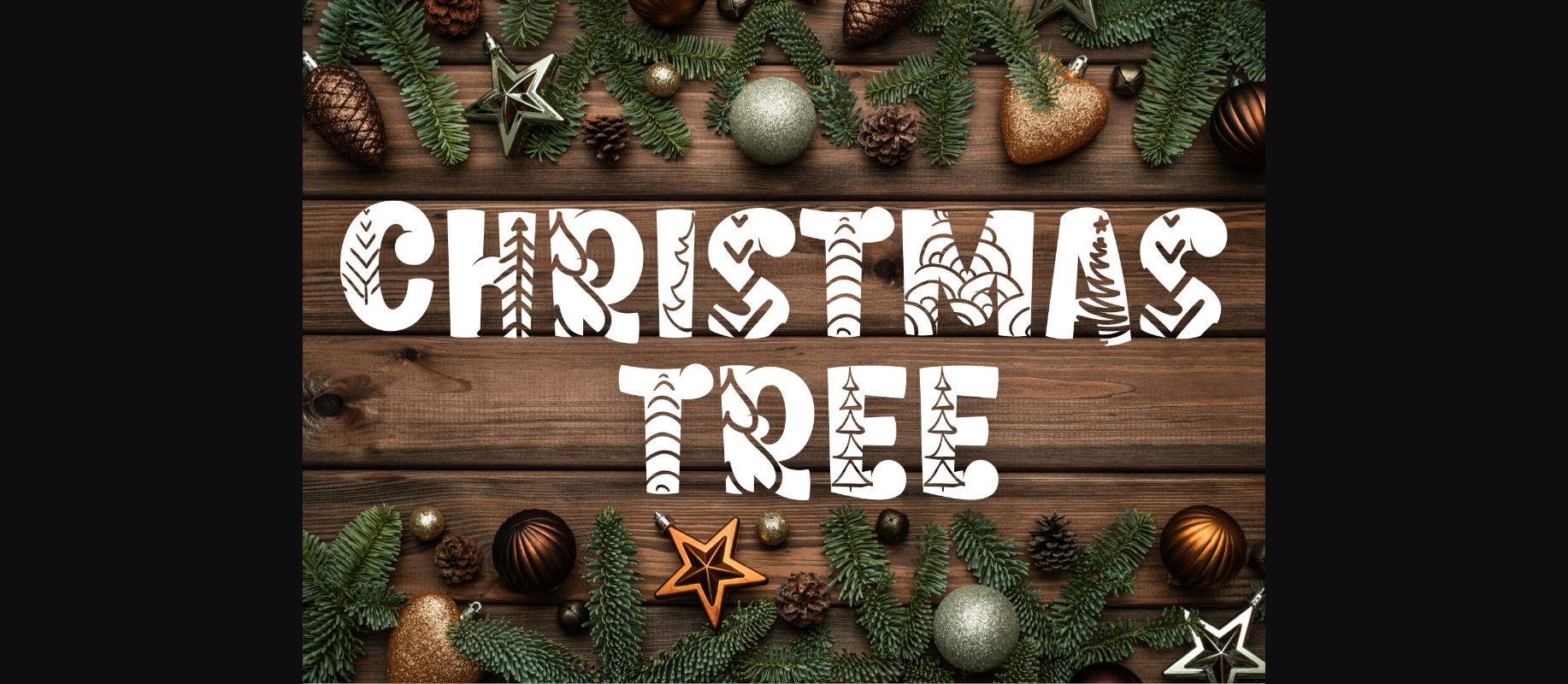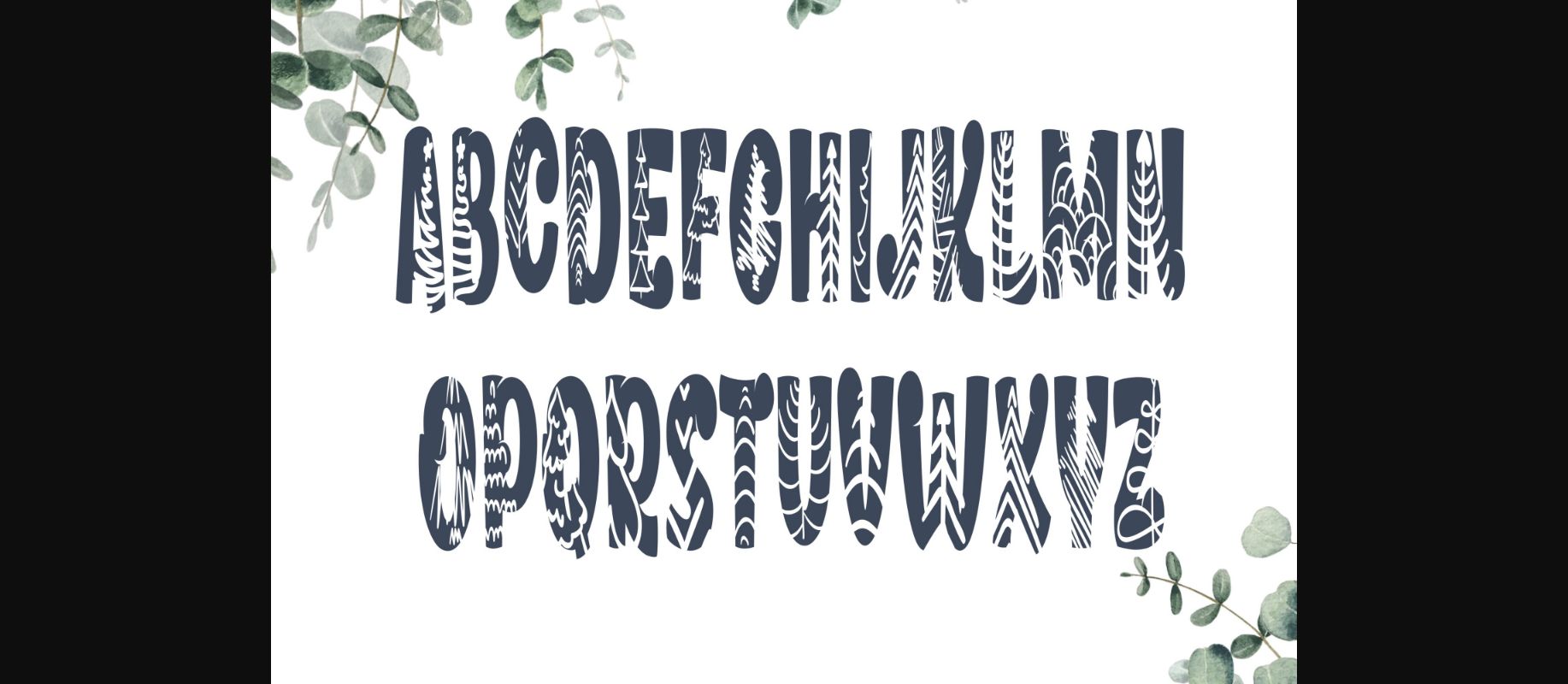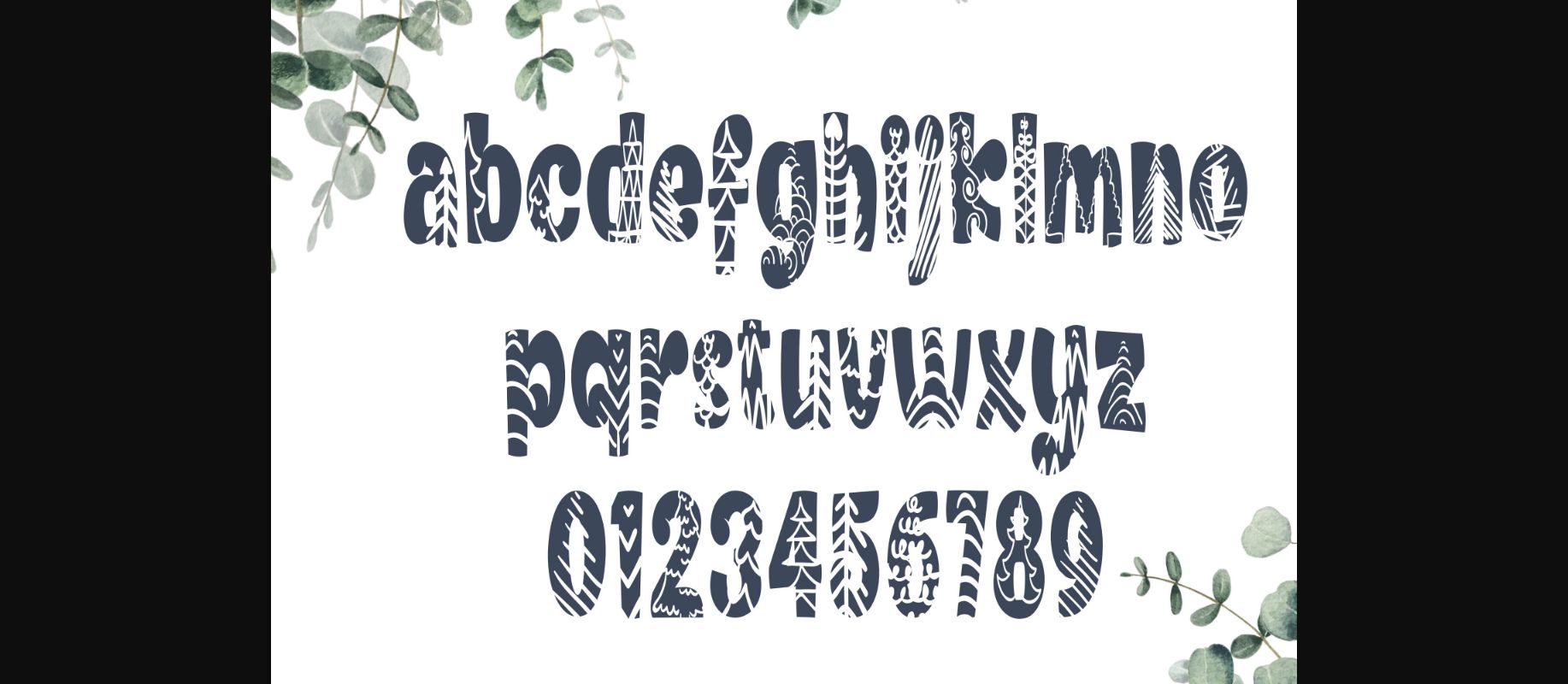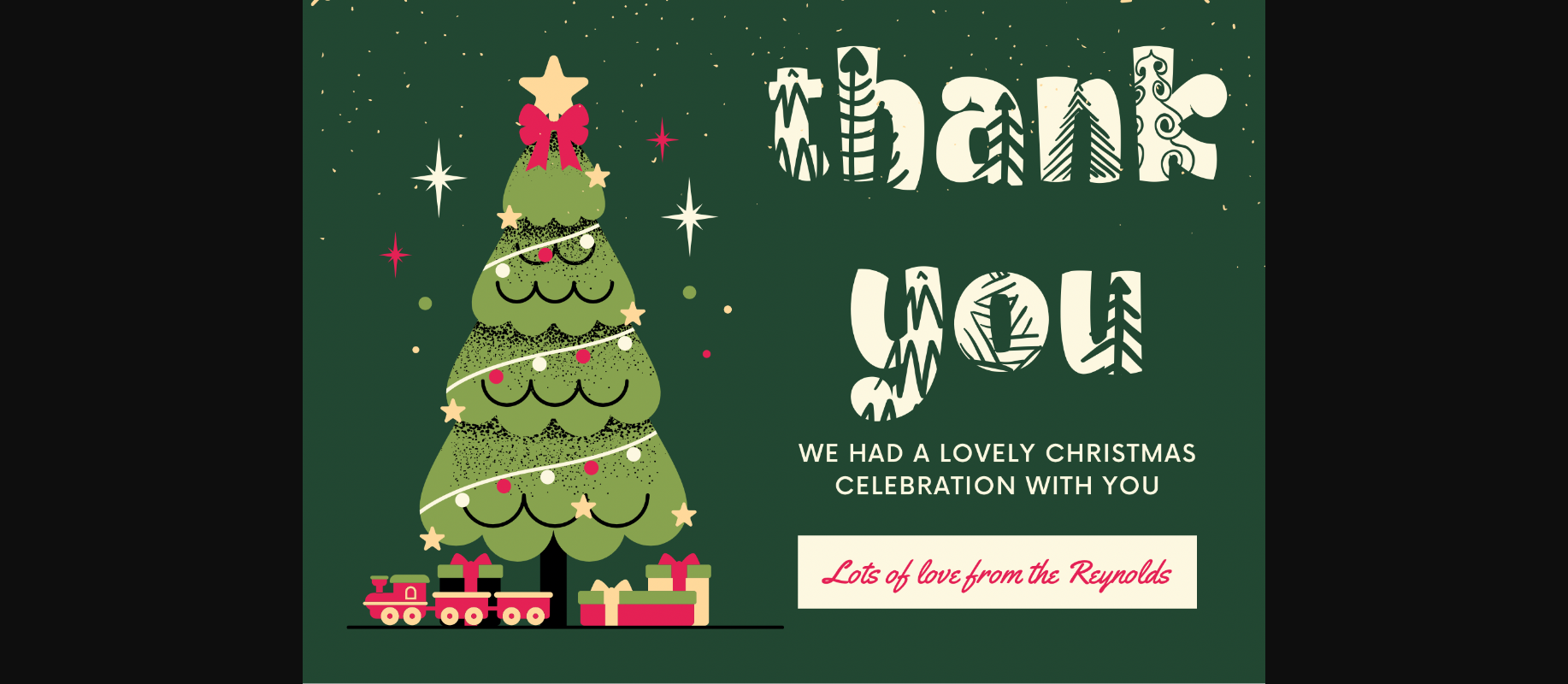
Christmas Tree is a lovely decorative font. It’s sweet, adorable, and festive! The typeface is designed to add some whimsical Christmas cheer to your projects.